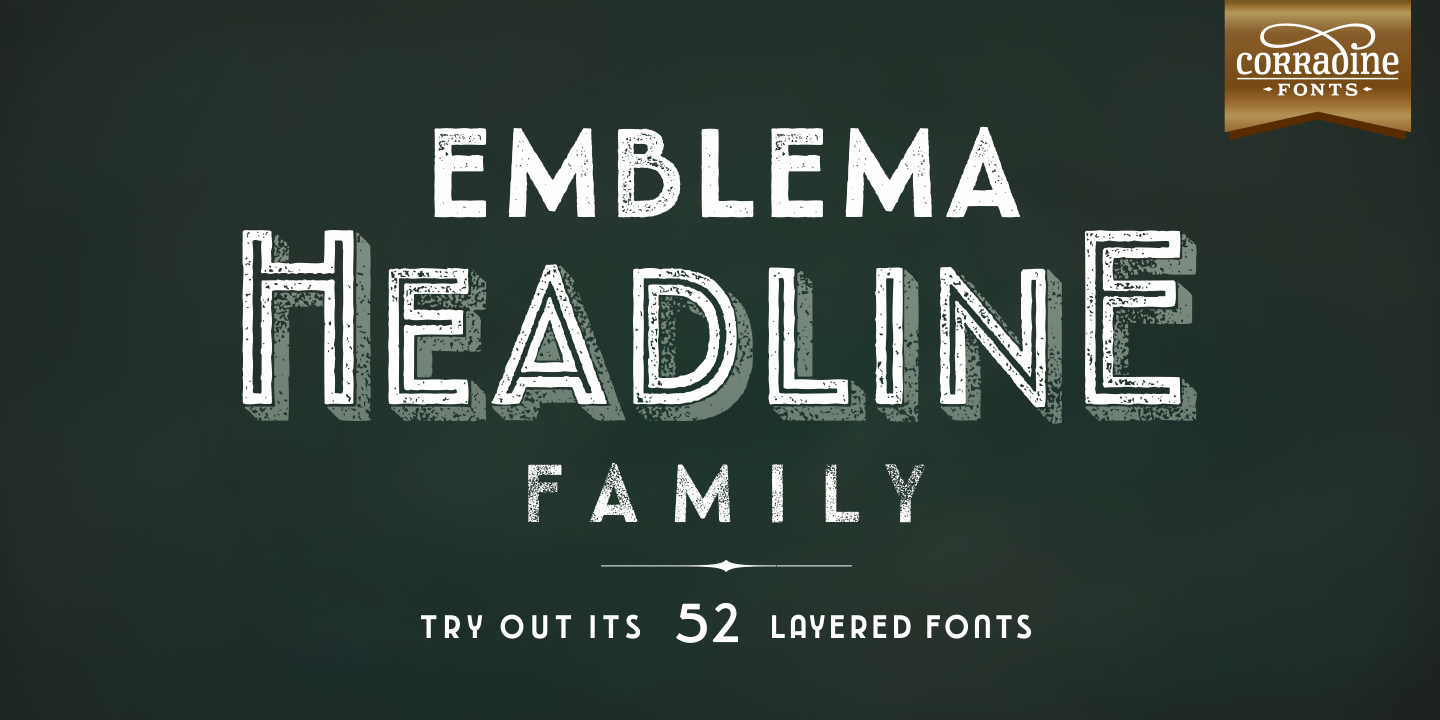
Emblema Headline Font is ideal for vintage-inspired branding, posters, logos, and editorial designs. Its Art Deco style shines in retro advertisements, event flyers, and website headers, evoking the elegance of the 1920s and 1930s.
Why is Emblema Headline Font exciting? Its geometric shapes and layered variations offer a bold, nostalgic charm with modern versatility, making your designs stand out with sophistication.
The Emblema Headline Font family includes 52 styles across four layers—Basic, Deco, Swash, and Extraswash—each with three to four unique looks, providing 13 distinct variations for creative flexibility.
Transform your projects with Emblema Headline Font Free Download today. This typeface delivers a clean, modern look with a vintage Art Deco personality, perfect for creating striking visuals. Whether for print or digital, Emblema Headline Font ensures your work captures attention with its elegant, retro aesthetic. Its layered design and diverse styles make it a top choice for designers seeking a unique, high-quality typeface. Download Emblema Headline Font Free Download now to explore its creative potential.